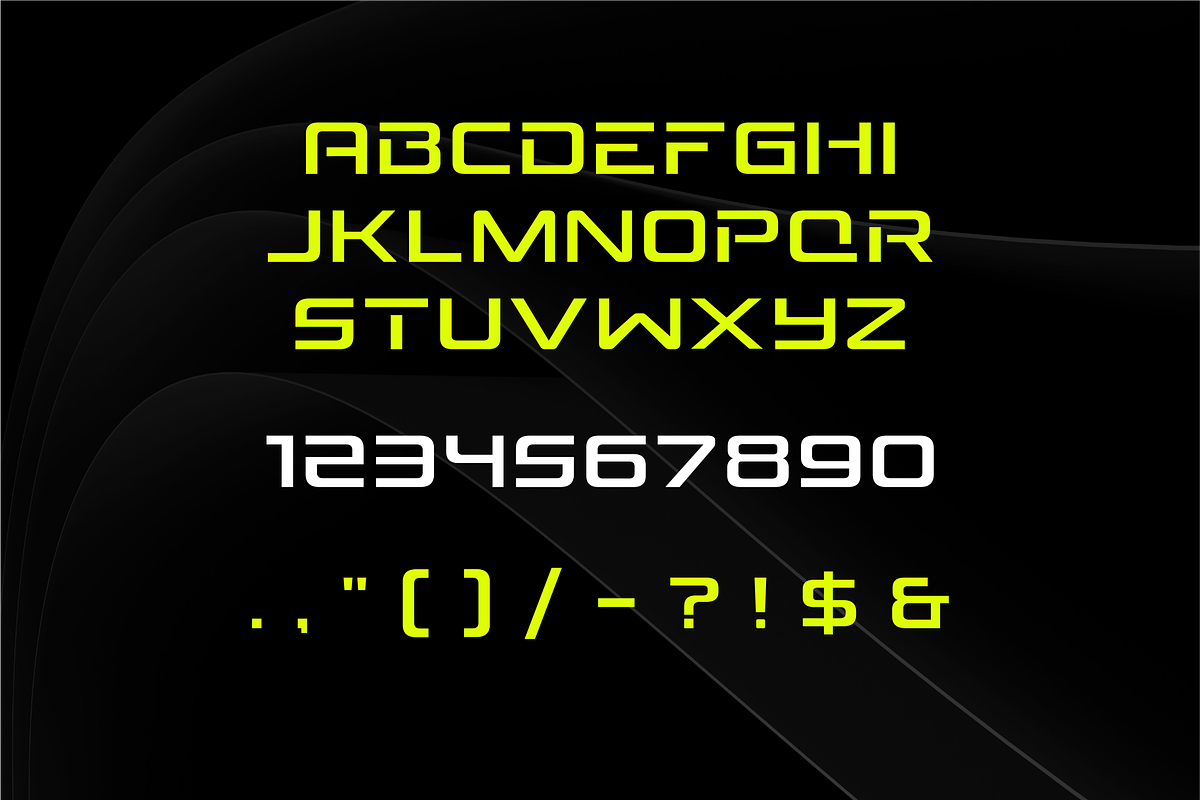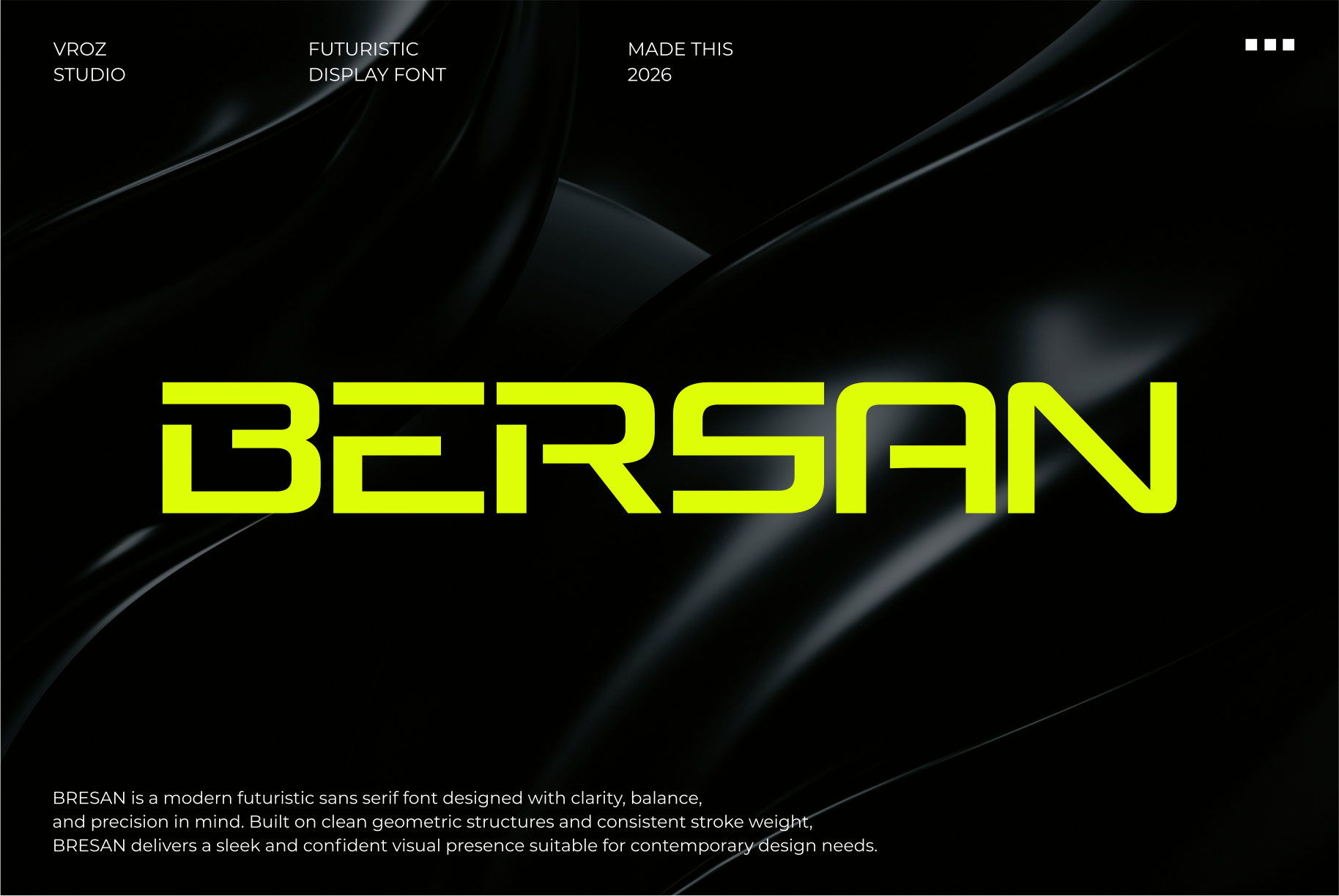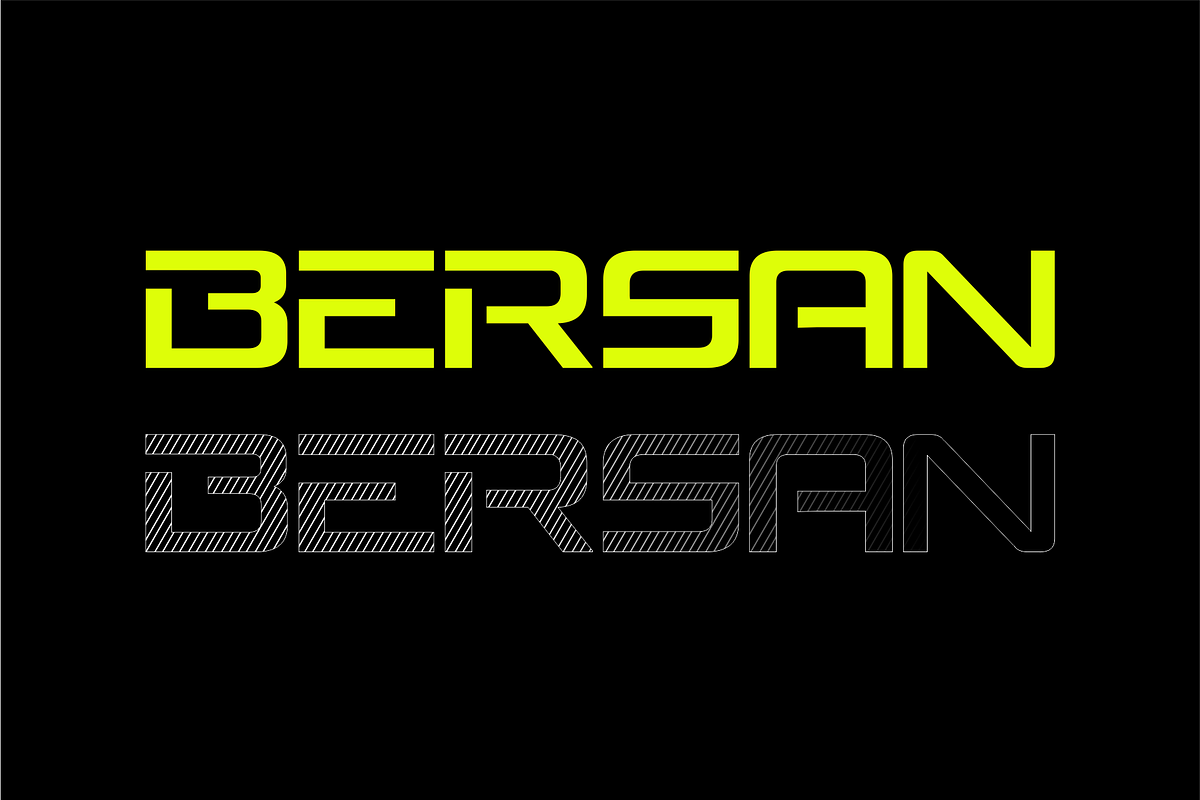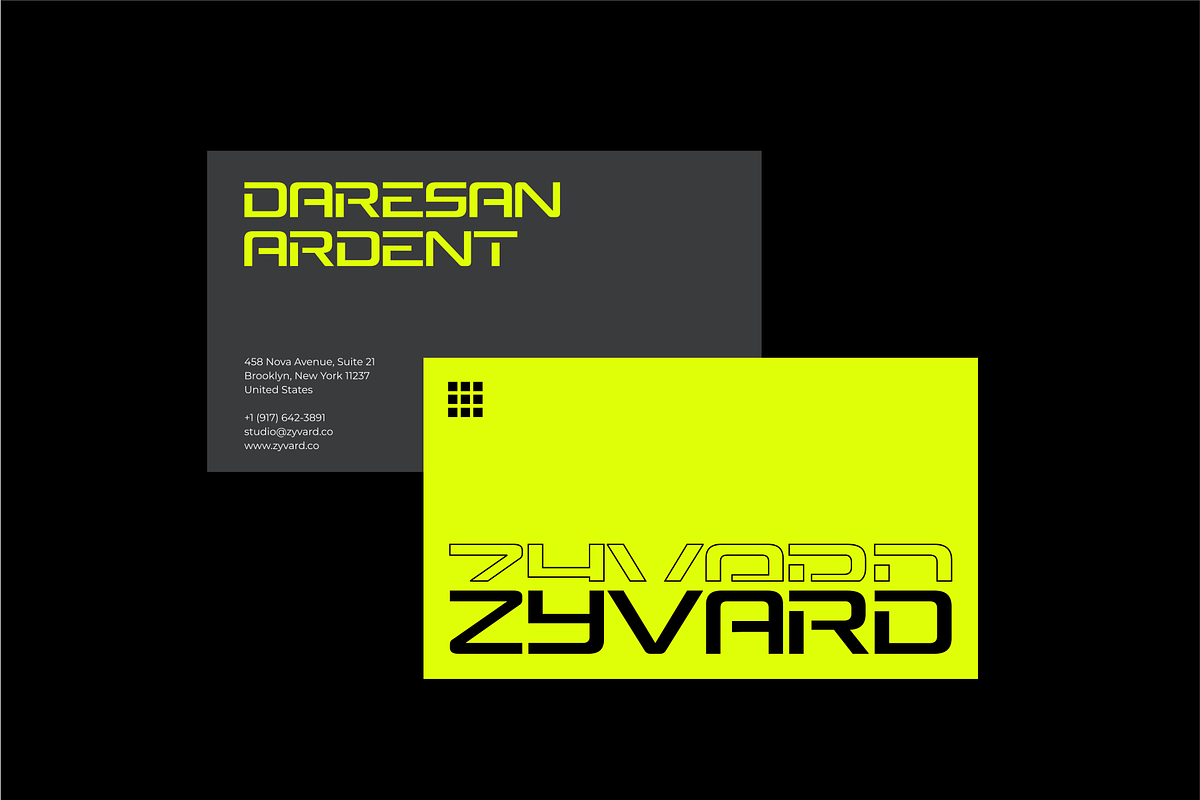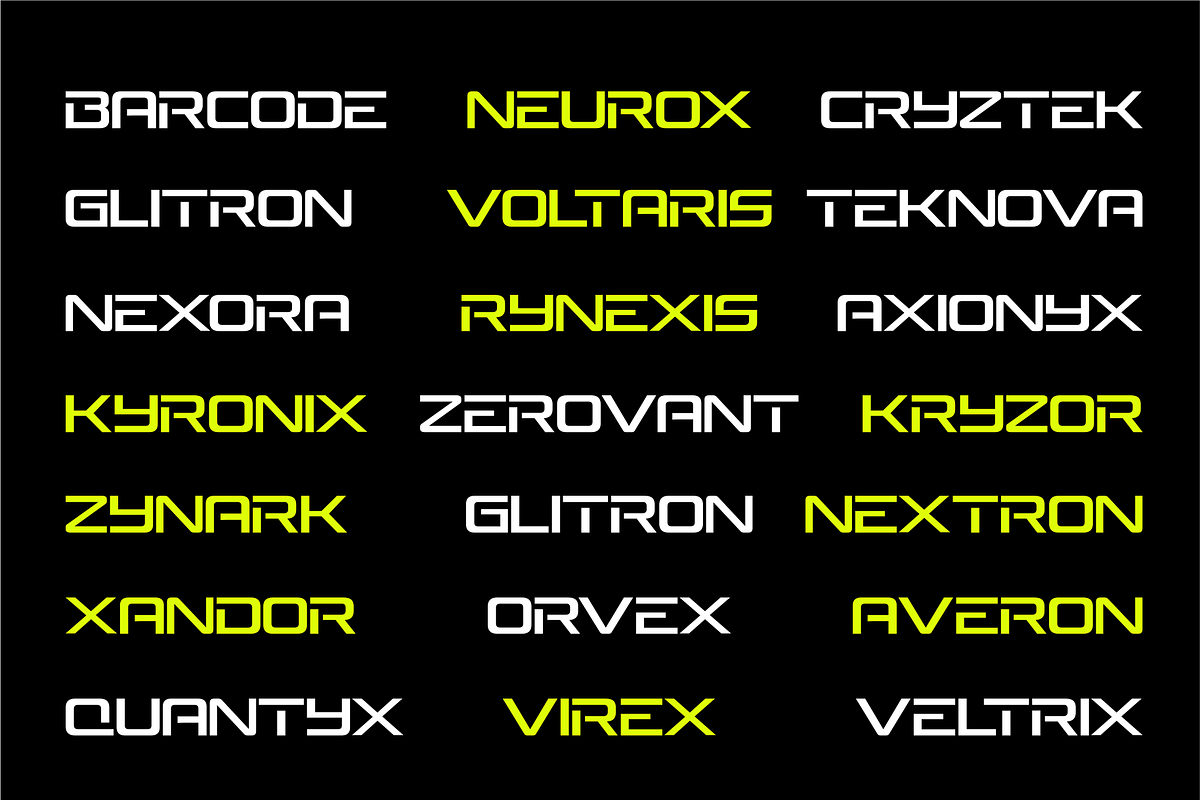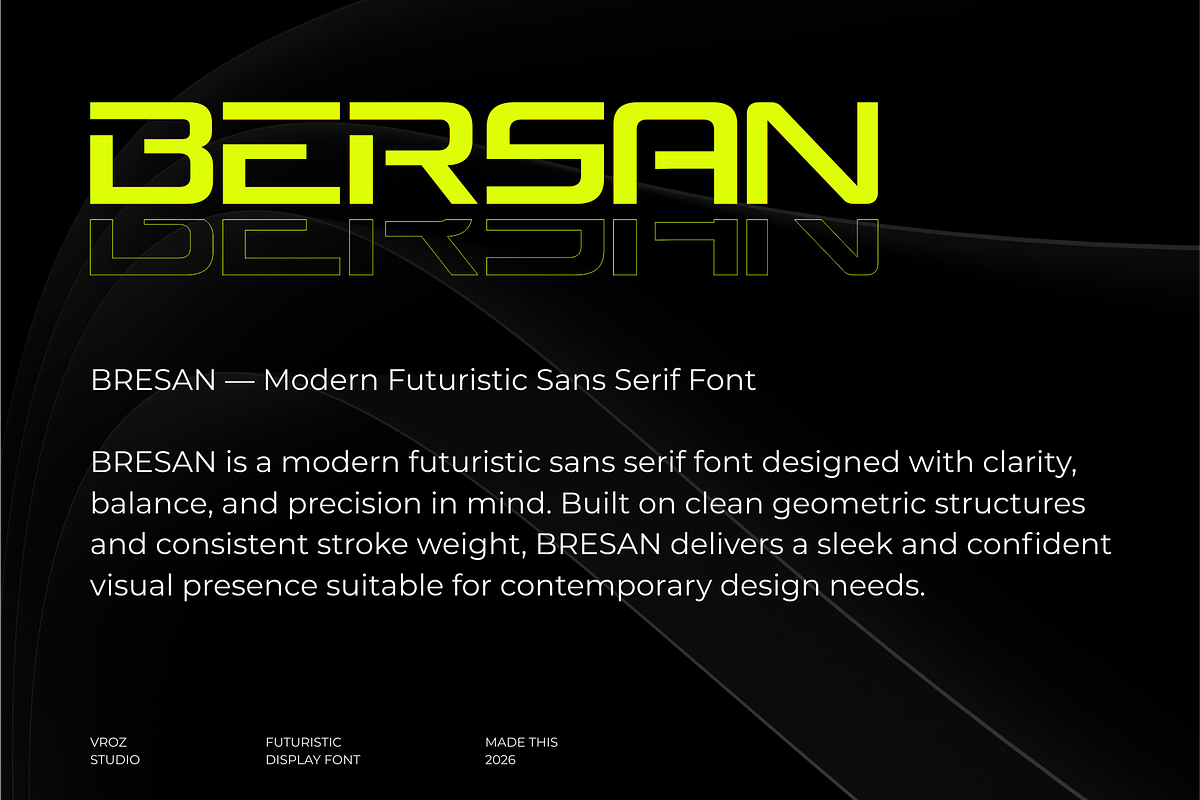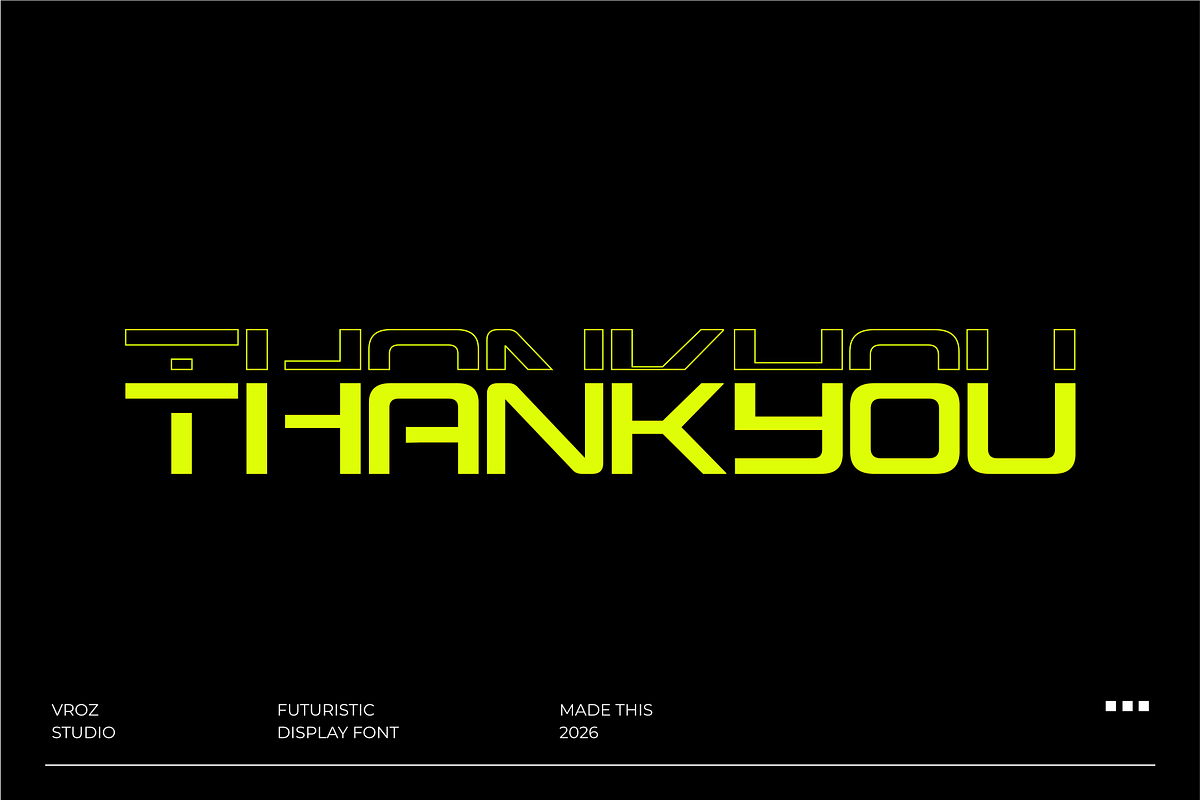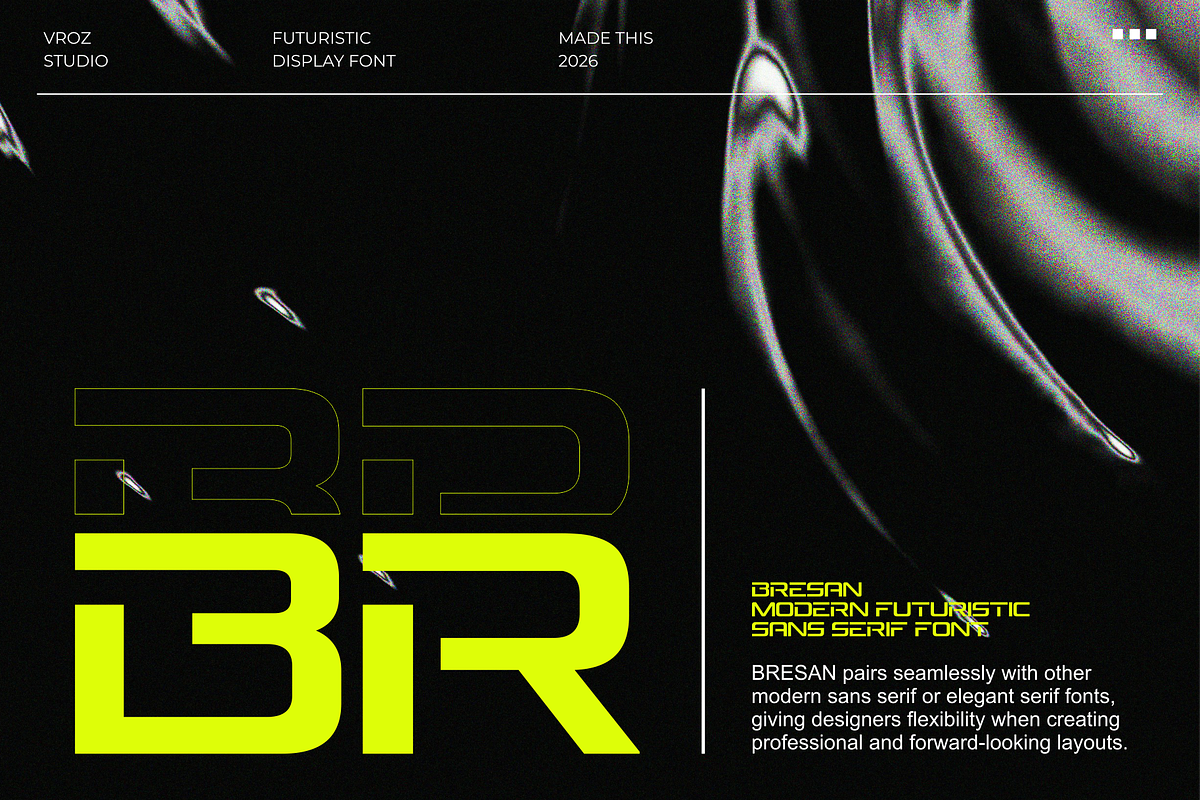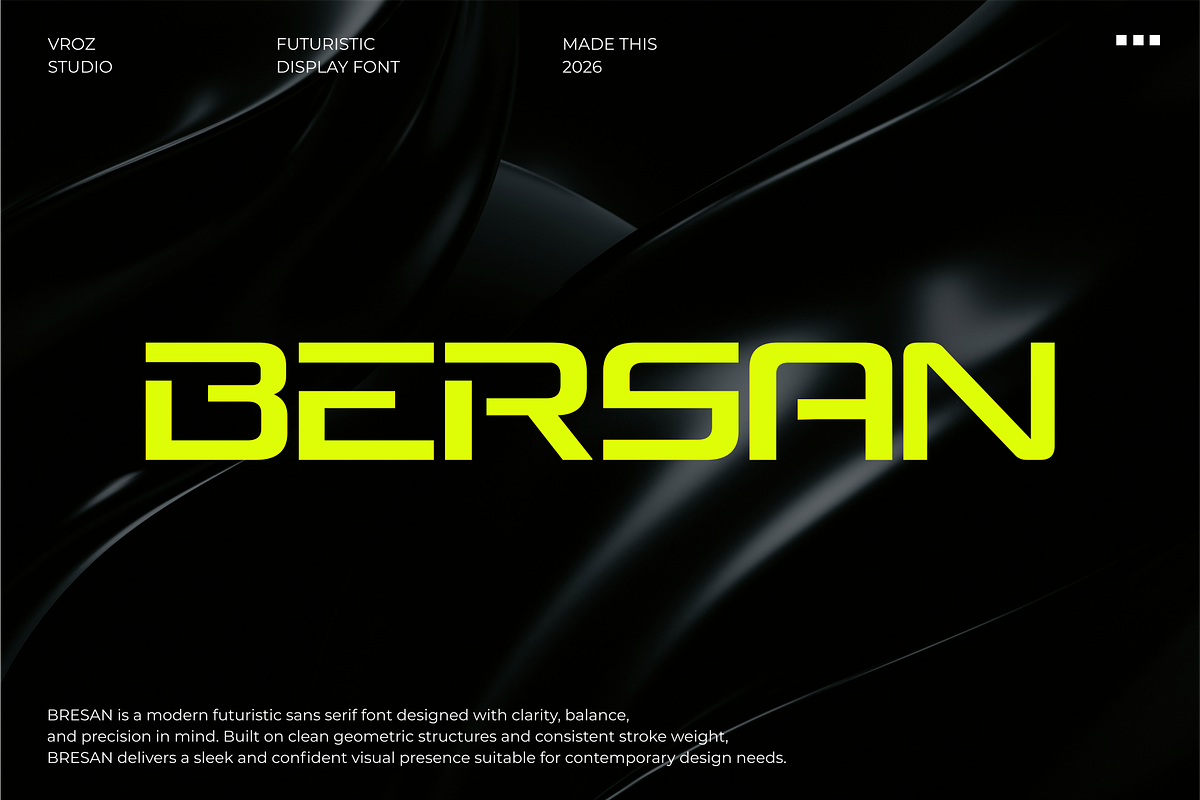
BERSAN – Futuristic Modern font
BERSAN is a futuristic modern sans serif font crafted for clarity, precision, and contemporary design needs. With its geometric structure, clean cuts, and smooth transitions, BERSAN delivers a confident and forward-looking visual style perfect for modern digital environments.
Designed to work seamlessly across a wide range of creative projects, BERSAN is ideal for branding, technology visuals, gaming graphics, posters, UI/UX layouts, and web interfaces. Its strong yet minimalist character allows it to stand out while maintaining a clean and professional appearance.
BERSAN pairs beautifully with other modern sans serif or classic serif fonts, giving designers flexibility when building sophisticated layouts. It’s a reliable choice for projects that require a futuristic tone with a versatile and timeless foundation.
- Futuristic modern sans serif style
- Clean geometric letterforms
- Consistent stroke weight
- High readability at small and large sizes
- Suitable for tech, digital, and gaming projects
- Ideal for branding, headlines, and UI design
Branding, Technology Projects, Gaming Visuals, Posters, Headlines, UI/UX Design, Web Design, Digital Products, Modern Layouts, Creative Projects